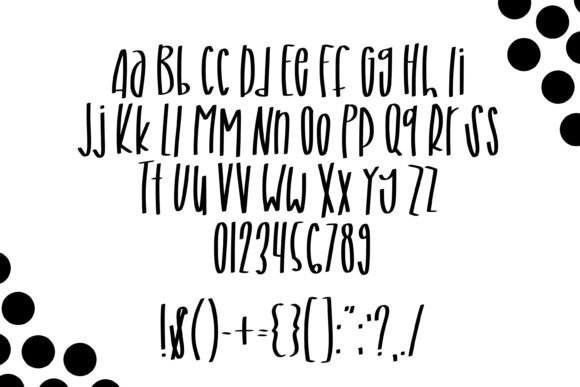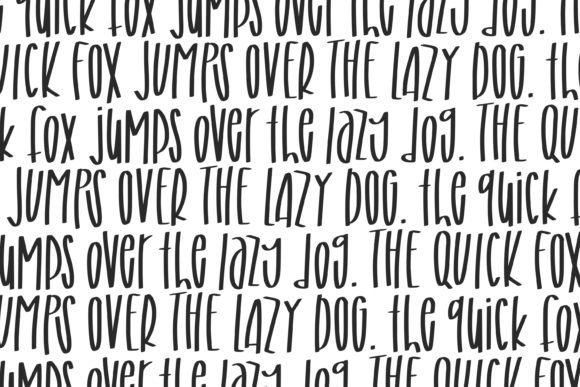
Weekday Blues Font
About Weekday Blues Font
Introducing the “Weekday Blues” font, the perfect companion to get you through your work week! This hand-lettered font is crafted to add a touch of personality to any document or email, infusing a playful yet professional feel. With the Weekday Blues font, even the most mundane tasks can be tackled with a sense of fun and creativity.
The Weekday Blues font is designed to inject a bit of excitement and character into your work-related communications. Its playful yet professional style allows you to stand out and add a unique touch to your documents, emails, or any other work-related content.
Whether you’re crafting emails, designing presentations, or creating documents, the Weekday Blues font will help you break free from the monotony of the work week. Its lively and engaging design brings a sense of fun to your text, making your content more interesting and memorable.
Incorporating the Weekday Blues font into your work-related materials is an easy way to add a dash of creativity and make your communications more engaging. It’s a perfect choice for anyone looking to infuse a bit of personality into their professional endeavors.
In summary, when you find yourself facing the Weekday Blues, let this font be your remedy. Add a little fun and creativity to your work week with the Weekday Blues font, turning mundane tasks into opportunities for self-expression and enjoyment.